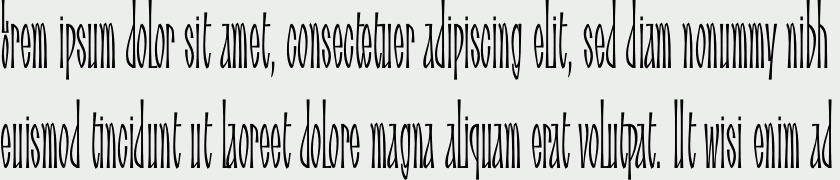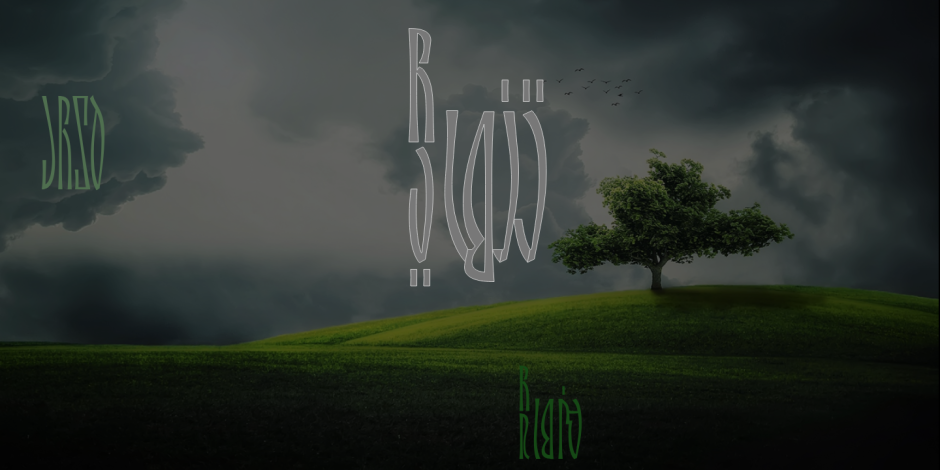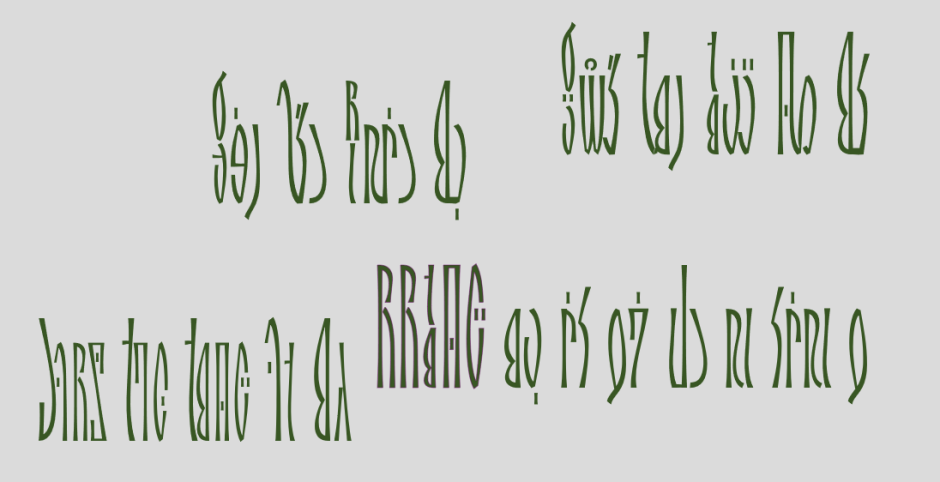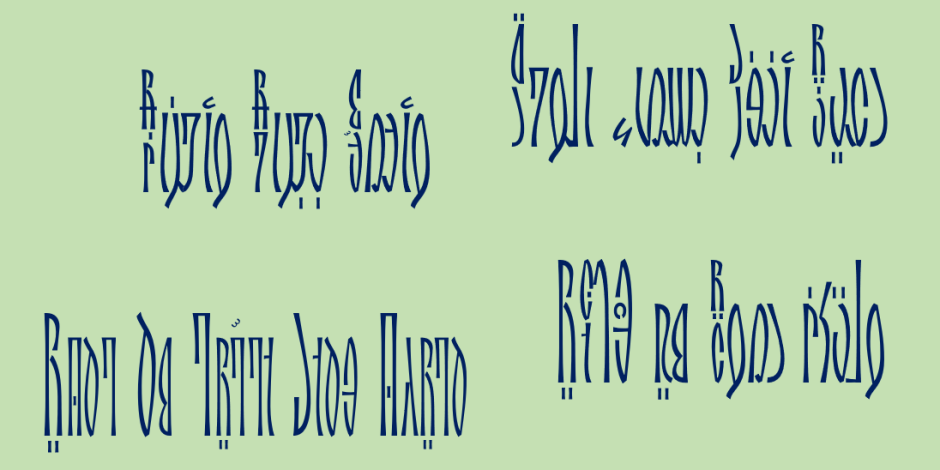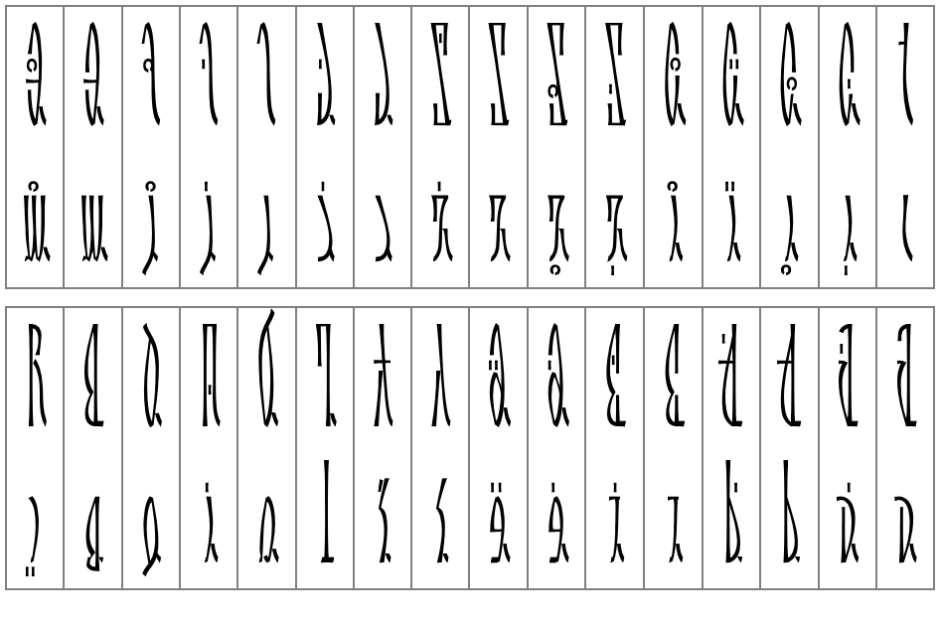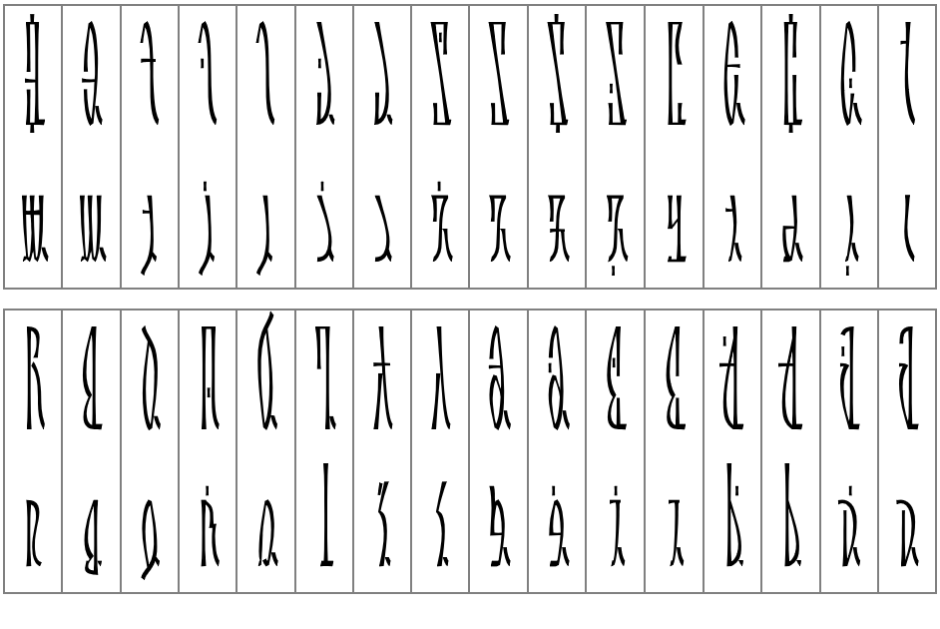
tenha
/ tenha LP Thin
Tenha (تنها, Lone) is supportive font family to the tenhayee font family, featuring five distinct styles. The initial two, namely tenha thin and tenha LP thin, represent classical Arabic typefaces. In all styles, modifications have been made to the shapes of capital (isolated) letters to engender a more consistent aesthetic.
The tenha LP (Less Point) thin is the only dot-reduced style in this font family, where glyphs with two or more dots are replaced with a new dotless shape.
The tenha MC (Mixed Case) thin emulates Latin fonts, allowing typists to toggle between lowercase (Initial) and uppercase (Isolated) letters through a software Caps Lock key. This software Caps Lock feature can be turned on or off by inputting The Tatweel letter.
The final two styles consist of the Small Caps (tenha SC thin) and All Caps (tenha AC thin) versions within this font family.
The style of this font family is inspied by the Drumnik font.